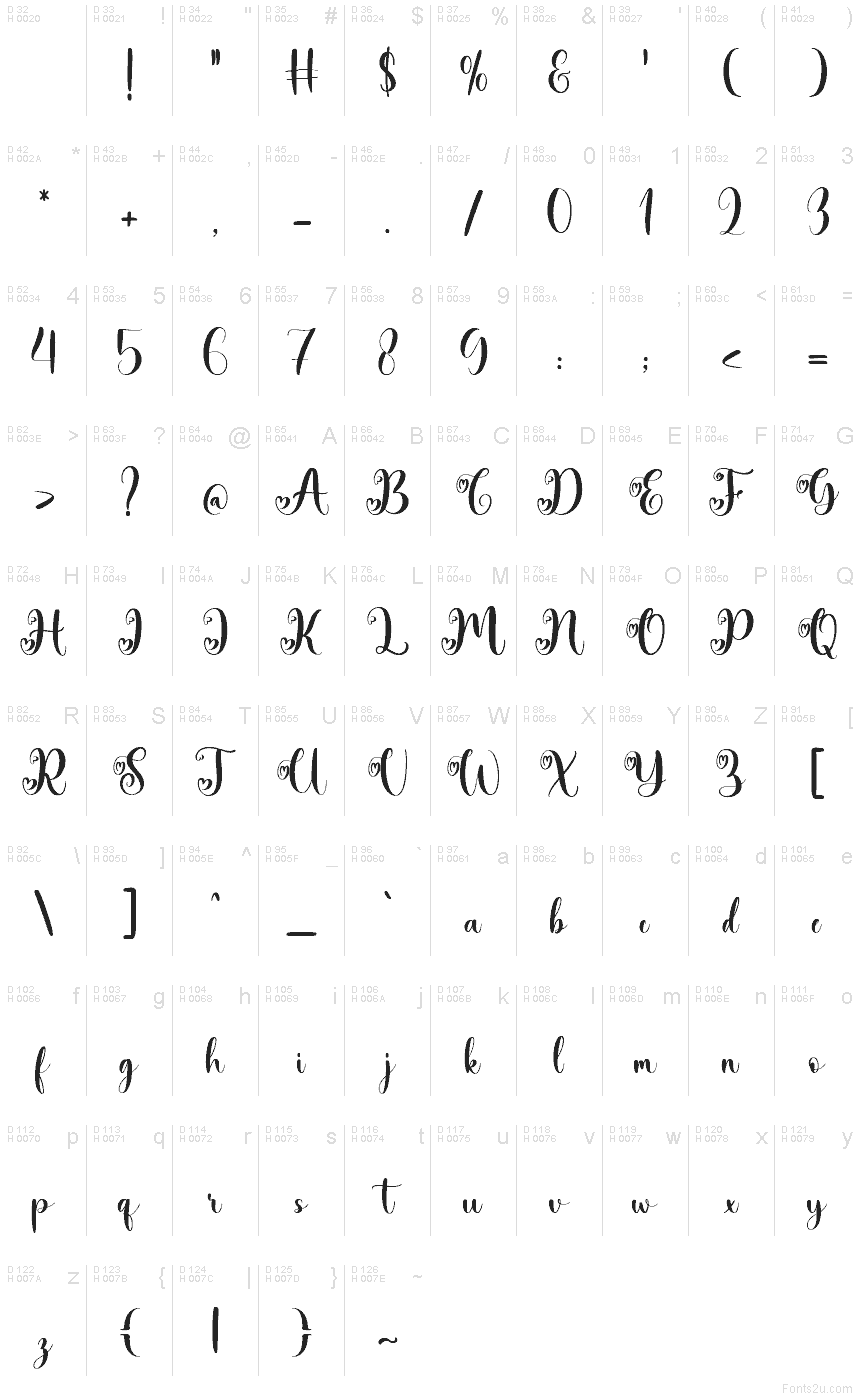
NCL Giby Qeitarq
NCL Giby Qeitarq font by Enxyclo Studio is a free calligraphy script typeface. Its signature flourish is the playful heart-tipped swash that punctuates letters, with inky, brush-like strokes that thicken and taper as they loop. The rhythm feels lively but readable, with airy spacing that lets the curls breathe without tangling.
Using NCL Giby Qeitarq, headlines gain a romantic, handcrafted spark that shines on wedding invites, boutique logos, gift packaging, greeting cards, quote posters, and lifestyle Instagram graphics. This free font loves generous sizes so the ornamentation sings; pair it with a quiet geometric sans-serif for body text to keep the message crisp.